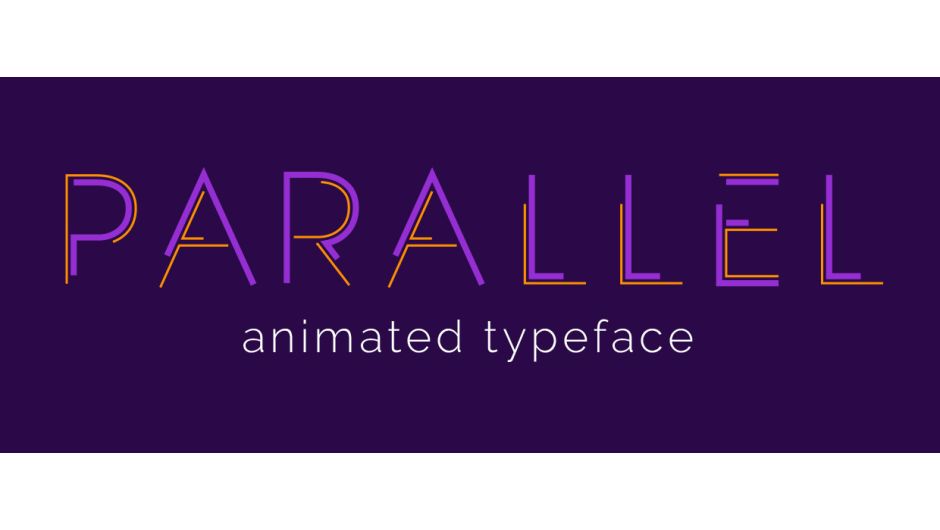
Parallel Animated Typeface
Parallel is an animated typeface with an integrated dockable user interface that allows you to built and customise an animated font.
The font is built with controllably styled pairs of parallel lines. You can adjust the weight and colour of either pair. You can even zero either line weight to make 2 more minimal fonts. Parallel is designed to always be as legible as possible – even when you push the minimalism. And, there's an Offset to enable you to take the style in another funky direction entirely.
Parallel animates in by default. The UI allows you to set staggering so you can precisely time the animation letter by letter. Time reverse a copy to animate out (not part of the UI, but easy to do).